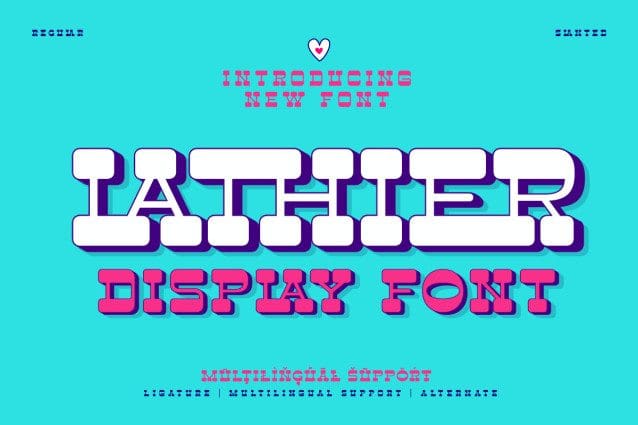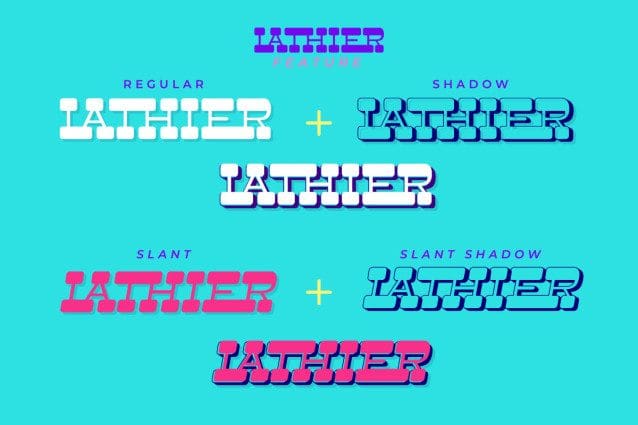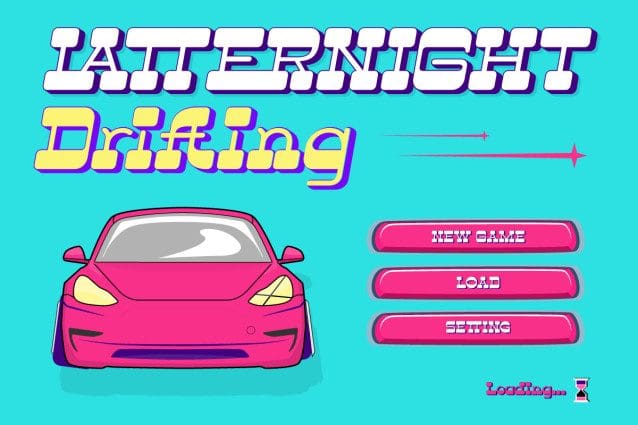
Lathier Display Font
Lathier Display Font, The unique shape of the letters is strong and full of character. With regular, shadow, and slant families, as well as complete ligature and alternate features, Lathier gives you the flexibility to create typographic designs that are striking and different from the rest.
Lathier Display supports multiple languages. With Lathier fonts, your message will penetrate the world, without language barriers.